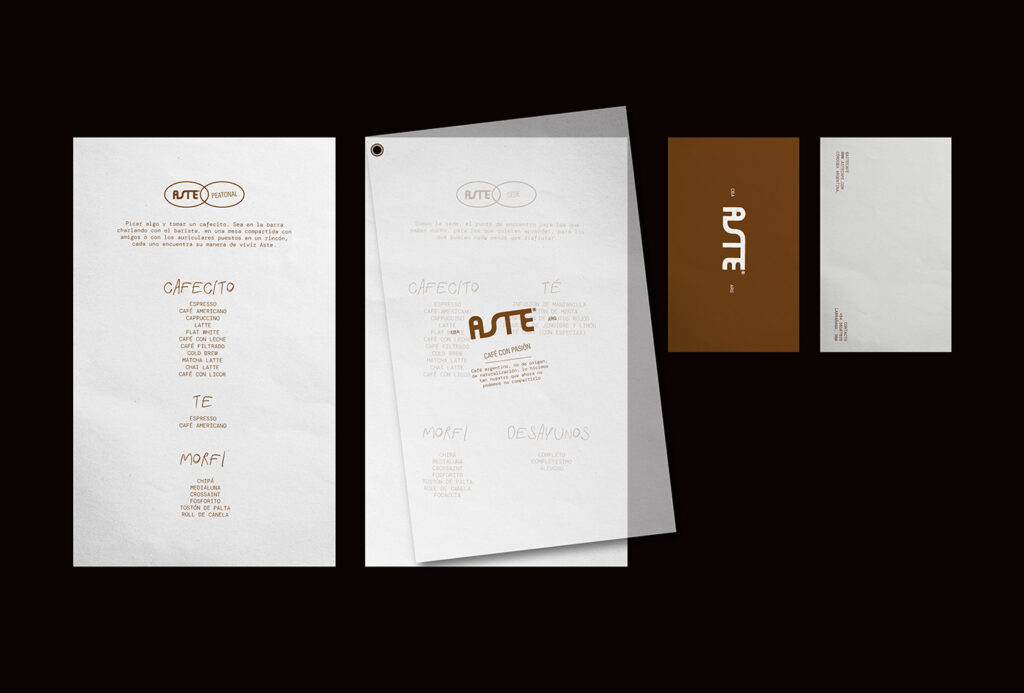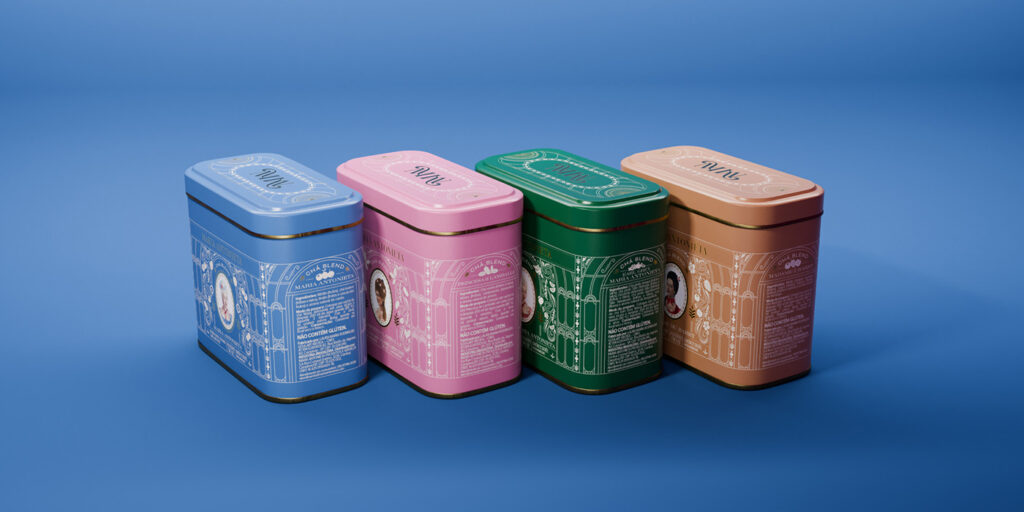
Last year, we explored how Cruzada Supply became a rich resource for creatives, effectively redefining creative boundaries within Venezuela. But behind every crisp texture and unique digital asset lies the strategic engine of ByBurgo. Based in Maracaibo, this studio has quietly built a recognizable identity through a well-balanced approach to branding and art direction. Today, we sit down with the team to discuss their initial inspirations, their straightforward design philosophy, and how they manage to stay freshly made in an ever-evolving industry.
A framed Burgo brand poster with chrome gothic lettering resting on a brown leather sofa.
What happened first: Burgo or Cruzada?
C/B: “Burgo came first. Cruzada came when we realized that the work behind the work is just as interesting as the work itself.
Every project has a process, the research, the decisions, the thinking that never makes it into the final file. We wanted a space to share that. Not as a portfolio, but as a resource. Something built for creatives who want to understand how ideas actually get made.
So Burgo is where we build. Cruzada is where we show how.”
Why Cruzada Supply?
C/B: “We wanted to make the invisible part of creative work more accessible.
The name follows a similar thread to Burgo. If Burgo comes from the idea of a place that protects and enables growth, Cruzada comes from the notion of a mission, something driven by intention.
We didn’t see many platforms, especially from Venezuela, creating resources for creatives. Most of what existed came from very different contexts. So part of Cruzada was also about that: contributing from our reality, with our way of working.
And in a sense, it became a space to experiment, to test ideas, to package knowledge into usable formats, and to explore new ways of creating value beyond client work.
What impact does being a Venezuela-based studio have on your business? What challenges have you encountered?
C/B:Being based in Venezuela has shaped almost everything about how we work: our pace, our mindset, our level of adaptability, even the kind of resilience we consider normal.
Of course there have been a lot of challenges. But we prefer to say that working from here taught us to build with a different kind of resourcefulness.
When we started, the context was uncertain, and that meant we had to be very intentional from day one. In many cases, early projects were less about profit and more about proving our value, sharpening our thinking, and building a body of work that could open bigger doors later.
At the same time, that same context gave us opportunities we might not have had otherwise. Because the local creative landscape was shifting so much, we were able to step into projects with a level of responsibility and scale that accelerated our growth early on. That experience became a huge part of our foundation.
A grid of eight graphic design layouts for CONCA Construction Group featuring bold typography in black, white, and orange.
Another big challenge was the creative awareness. Especially in the beginning, a lot of clients weren’t necessarily expecting the level of thinking we were bringing into the work: research, positioning, market analysis, long-term business context. So there was a constant effort to not only do the work, but also explain why it mattered.
In that sense, being based in Venezuela has made us more flexible, but also more intentional. We’ve had to learn how to combine structure with warmth, systems with human connection. We were inspired by more structured studio models from abroad, but we also understood very quickly that our context required a different rhythm, one where trust and closeness matter just as much as process.
That mix has become part of our practice.
And in a very real way, the work we were able to build here is what later allowed us to connect with clients and collaborators outside of Venezuela. So while the environment came with its difficulties, it also gave us perspective, resilience, and a portfolio that carries real weight.
A billboard in a subway station featuring the Cruzada CRZ logo and text about precision-engineered mockups.
Has the growth of AI impacted your business with Cruzada in any way? What about client perceptions?
C/B:Genuinely, yes, but probably not in the way people expect when they ask this.
It hasn’t replaced anything. What it’s done is compress the distance between thinking something and actually seeing it. We can test a direction, hate it, try another one, and get somewhere useful, all before we’ve committed to anything. That speed changes the rhythm of the work in a good way.
Because here’s something nobody talks about enough: one of the hardest parts of creative work is just knowing if you’re going in the right direction. AI helps answer that question earlier.
What it hasn’t changed is where the actual value lives. The output moves faster, but the taste, context, and judgment behind it? That’s still entirely on you. Without that, everything starts looking like everything else, and right now, a lot of things do.
ByBurgo operates with a fully-fleshed vision that extends far beyond simple aesthetics. Their work is a noticeable reminder that great design is often ethically focused and deeply rooted in its environment. Whether they are developing a custom brand identity at ByBurgo or expanding their important work with Cruzada Supply, their output remains delicate yet impactful. We can’t wait to see what this lighthearted yet professional team tackles next as they continue to elevate the Venezuelan design scene.
A type of Cami.